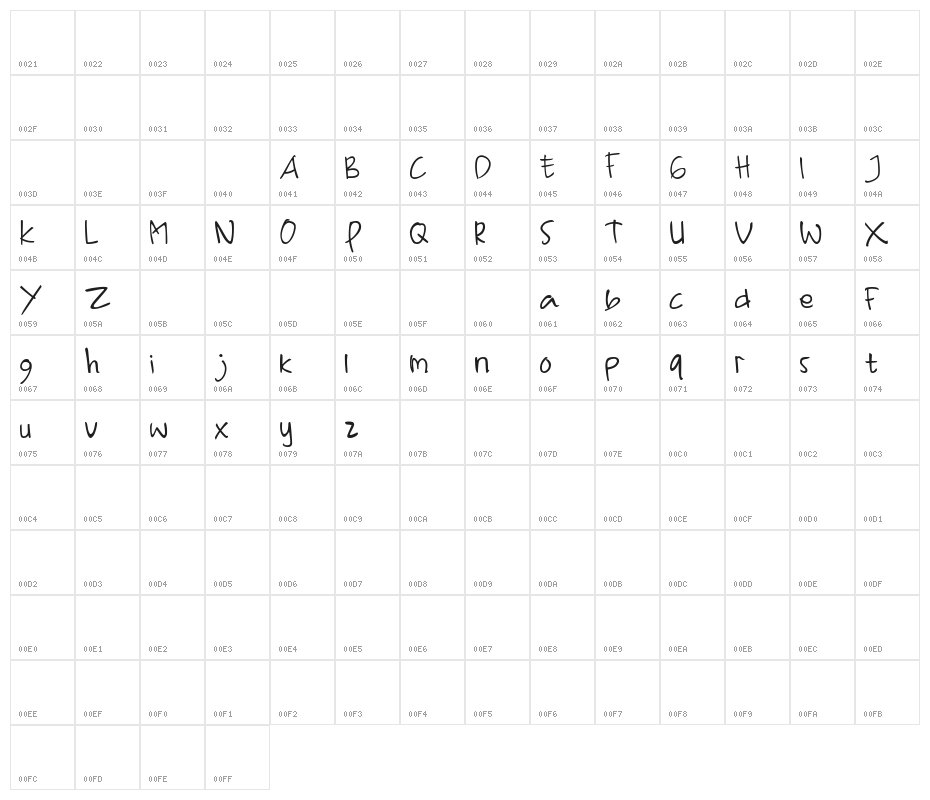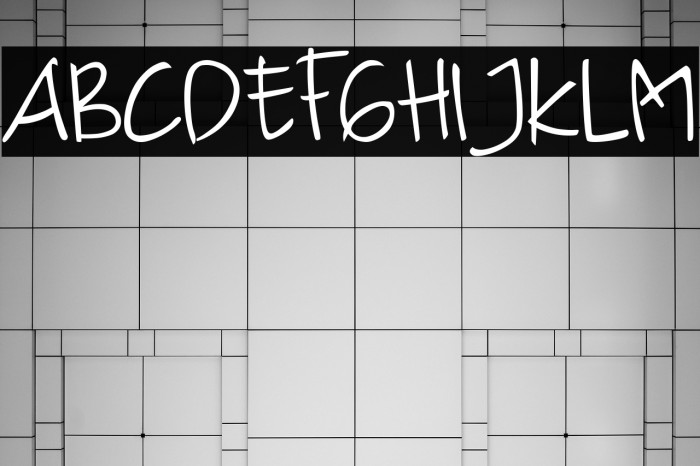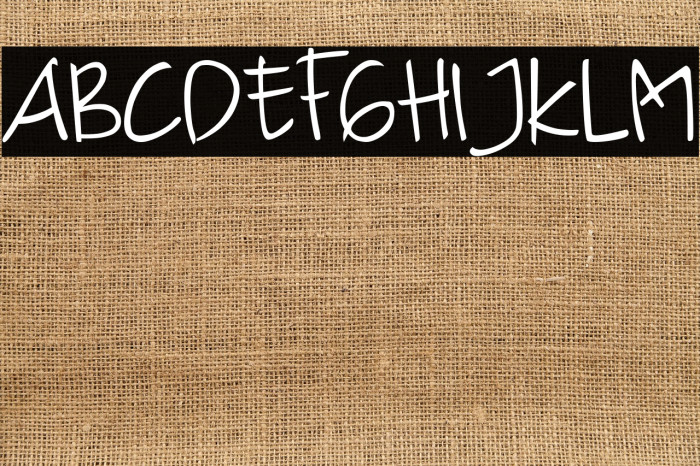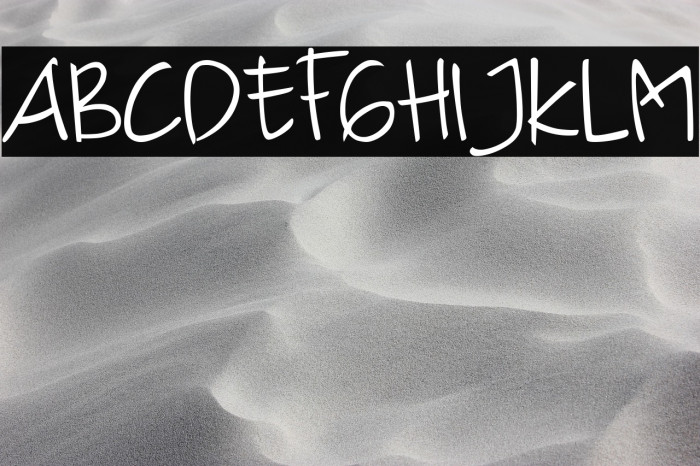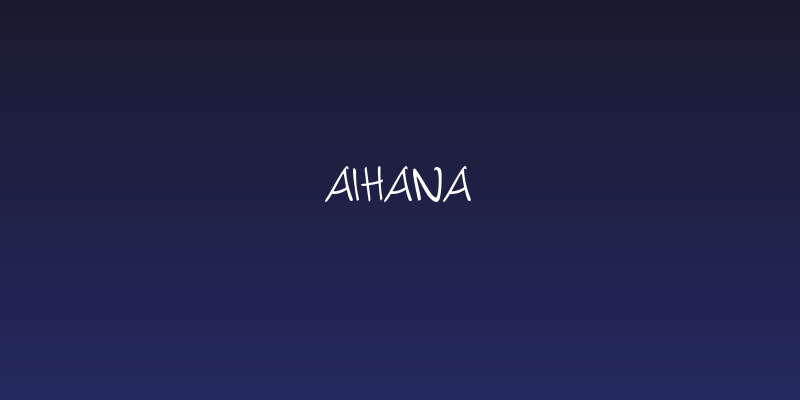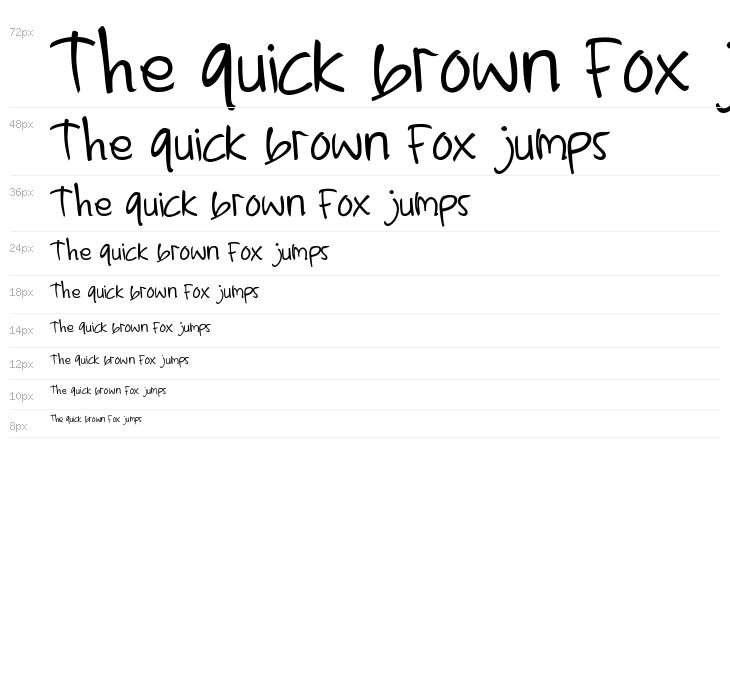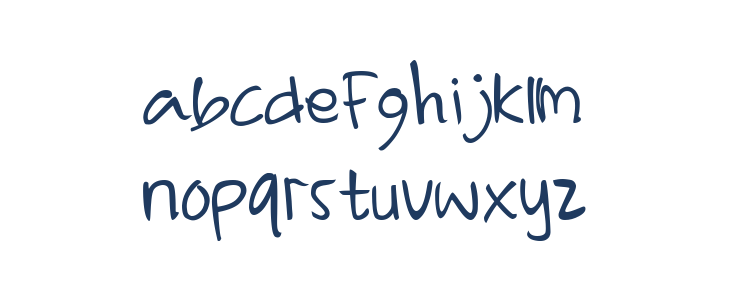
Aihana Font
Aihana Description
This font features a playful and informal handwritten style, characterized by its irregular strokes and casual appearance. The letters are slightly slanted, giving a dynamic and lively feel. The uppercase and lowercase letters maintain a consistent flow, with rounded edges and varying stroke widths that add to its friendly and approachable nature. The font's organic and spontaneous design makes it suitable for projects that aim to convey warmth and creativity. Its unique character shapes and informal structure make it stand out, providing a personal touch to any text.